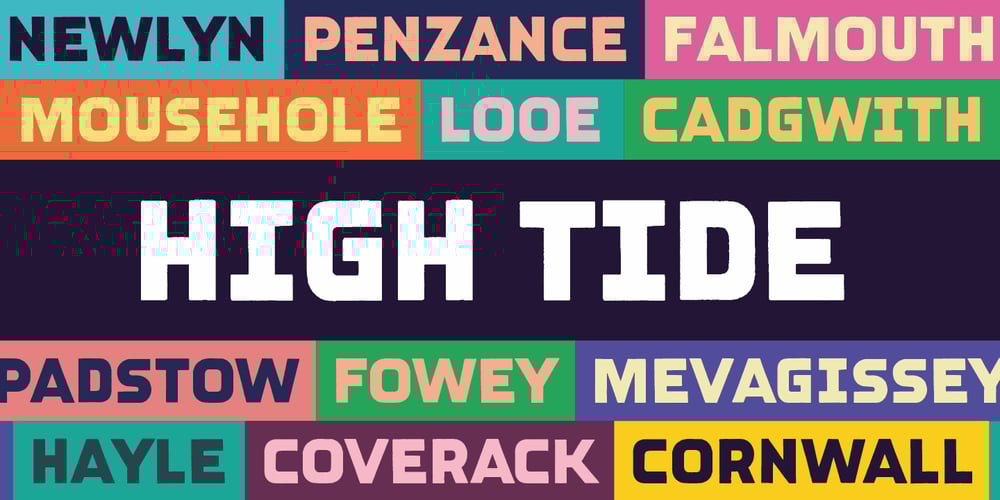
High Tide AT Font Family was designed by Aaron Chiffers and published by Arctype. High Tide AT contains 2 styles and family package options. High Tide is inspired by the lettering made by the fisherman of Cornwall. Shapes made by hand that are created to be functional with a geometric precision, yet appear hand-drawn and human for an honest and sincere quality.